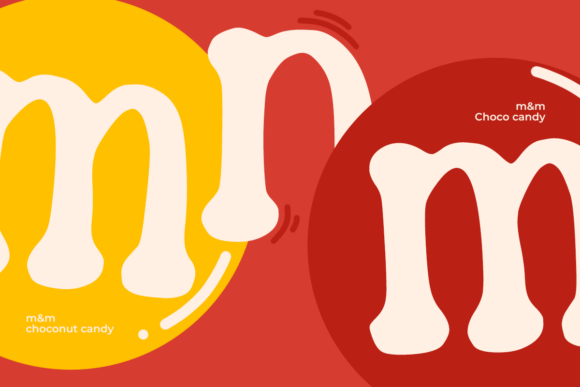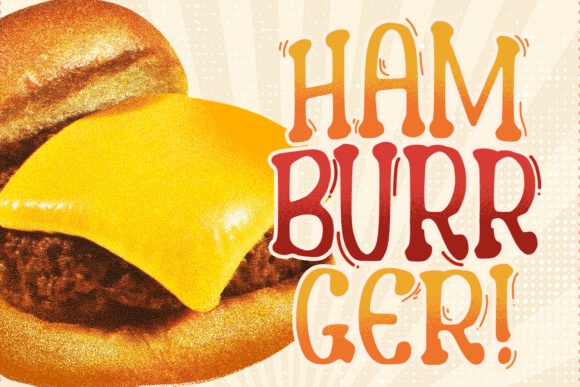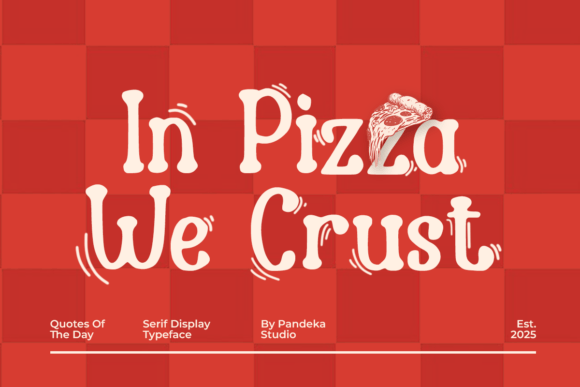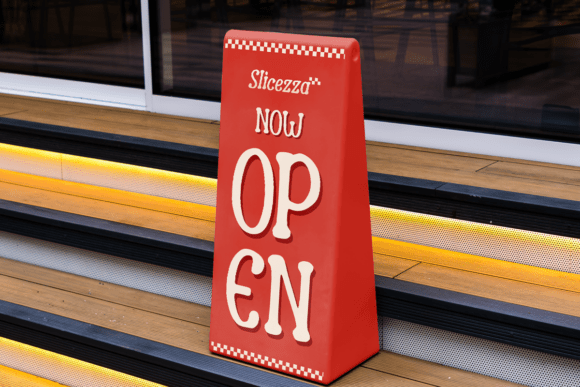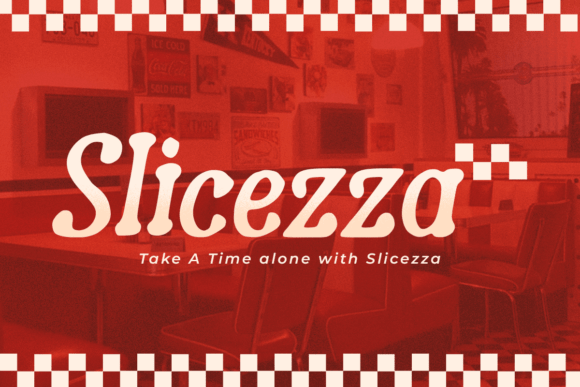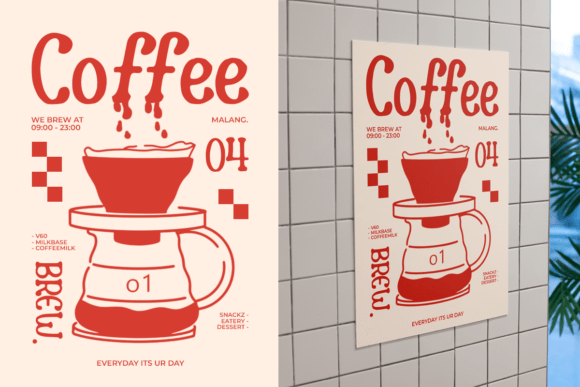
Unleash the Playful Spirit: Introducing the Gisgro Font
You’re sitting in a cozy café, surrounded by the aroma of freshly baked goods and the hum of lively chatter. You glance at the menu board, and your eyes land on a vibrant font that catches your attention – the perfect combination of nostalgia and modern charm. This is the moment when creativity strikes, and you know exactly what you need to bring your design to life: the Gisgro Font.
This playful serif display font is specifically designed to add a fun and vintage touch to your projects. With its chunky, bold characters and cheerful vibe, Gisgro Font is perfect for food branding, cafe posters, kids’ designs, and retro-style promotions. Its versatility makes it a valuable asset for designers looking to add a unique twist to their work.
Gisgro Font Key Features
- Unique Characteristics: Gisgro Font features a unique blend of geometric and organic shapes, creating a distinctive and modern aesthetic.
- Language Support: The font supports multiple languages, including Latin, Cyrillic, and Greek alphabets, making it a versatile choice for global branding and design projects.
Gisgro Font Review
I’ve been working with the Gisgro font for a while now, and I have to say, it’s got some really cool aspects to it. ✨ The rounded edges and smooth curves give it a friendly, approachable feel that’s perfect for designs targeting a younger audience. The font also comes in a variety of weights and styles, making it super versatile and easy to use.
One of the things I love about Gisgro is its ability to add a touch of modernity to designs without looking too edgy or trendy. It’s a great choice for anyone looking to create a clean, minimalist aesthetic without sacrificing personality.
Limitsations
While Gisgro is an excellent font in many ways, there are a few limitations to consider. ⚠️ For one, it may not be the best choice for designs that require a lot of text or complex typography. The font can start to look a bit cluttered and overwhelming when used extensively, which may detract from the overall design.
- Limited ligature support, which can lead to some awkward word combinations
- May not be suitable for designs requiring a lot of fine typography or precise control over letter spacing
All in all, I think Gisgro is a solid choice for designers looking to add some modern flair to their work. While it may not be perfect for every design project, it’s definitely worth considering for its unique style and versatility.
Alternatives to Gisgro Font
Open Sans is a popular sans-serif font that is highly legible and versatile. It is ideal for use in digital media, such as websites and mobile apps, where readability is crucial.
Compared to Gisgro Font, Open Sans is more modern and sleek, with a larger x-height that makes it easier to read at smaller font sizes.